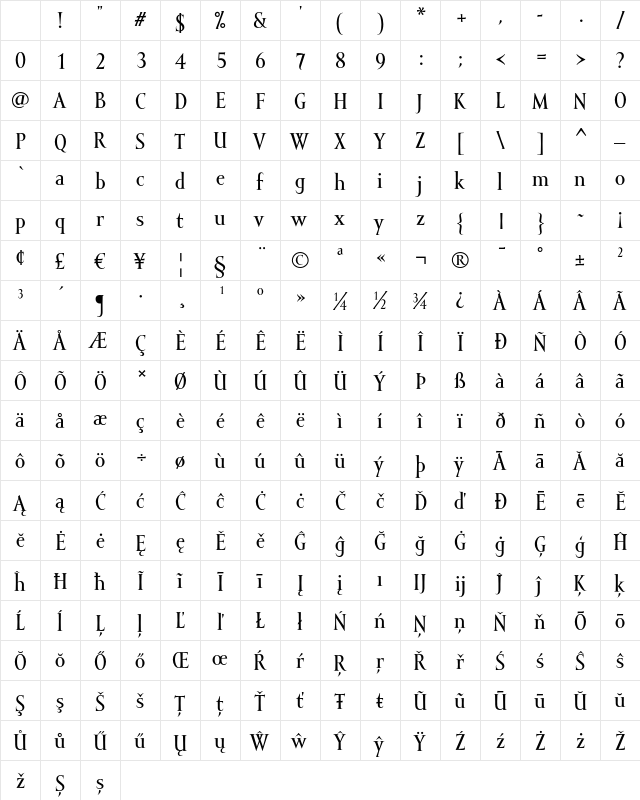
Mramor Light Light Bold Free Font
Mramor Light Light Bold
Style: Light Bold
Foundry: Frantisek Storm, www.stormtype.com
Design Context for Mramor Light
Mramor Light is a composed and adaptable typeface that performs quietly and consistently across a wide range of design contexts. Its bold stroke weight gives it real presence on the page.
Who designed the Mramor Light Light Bold font?
This font was published by Frantisek Storm, www.stormtype.com. Check the technical specs section for copyright and designer details.